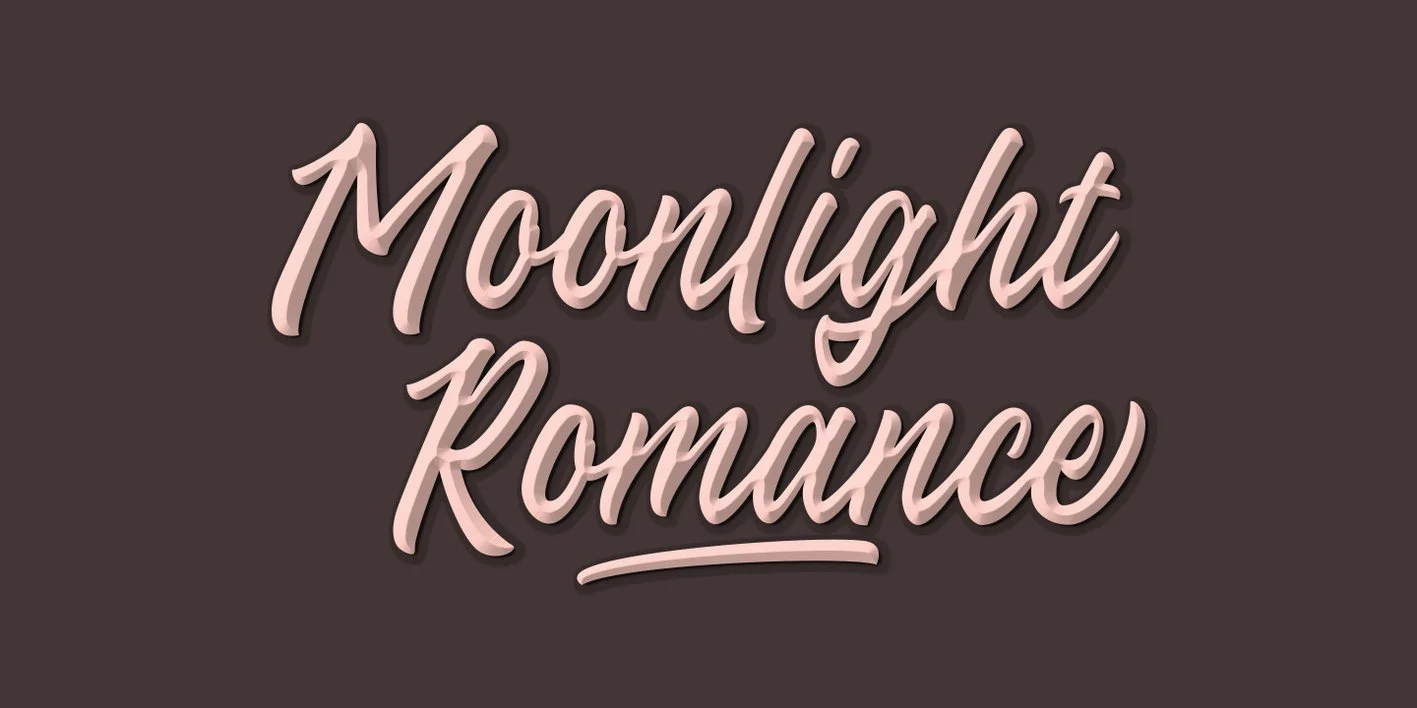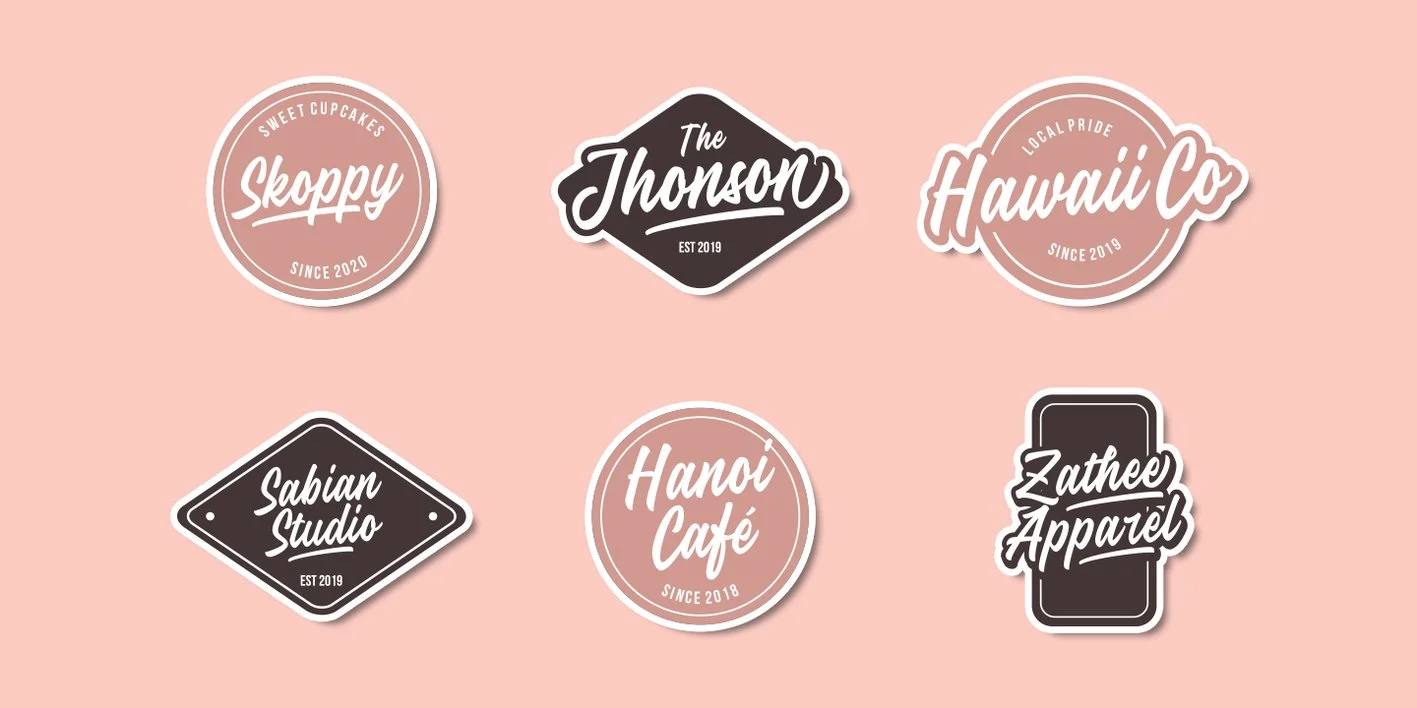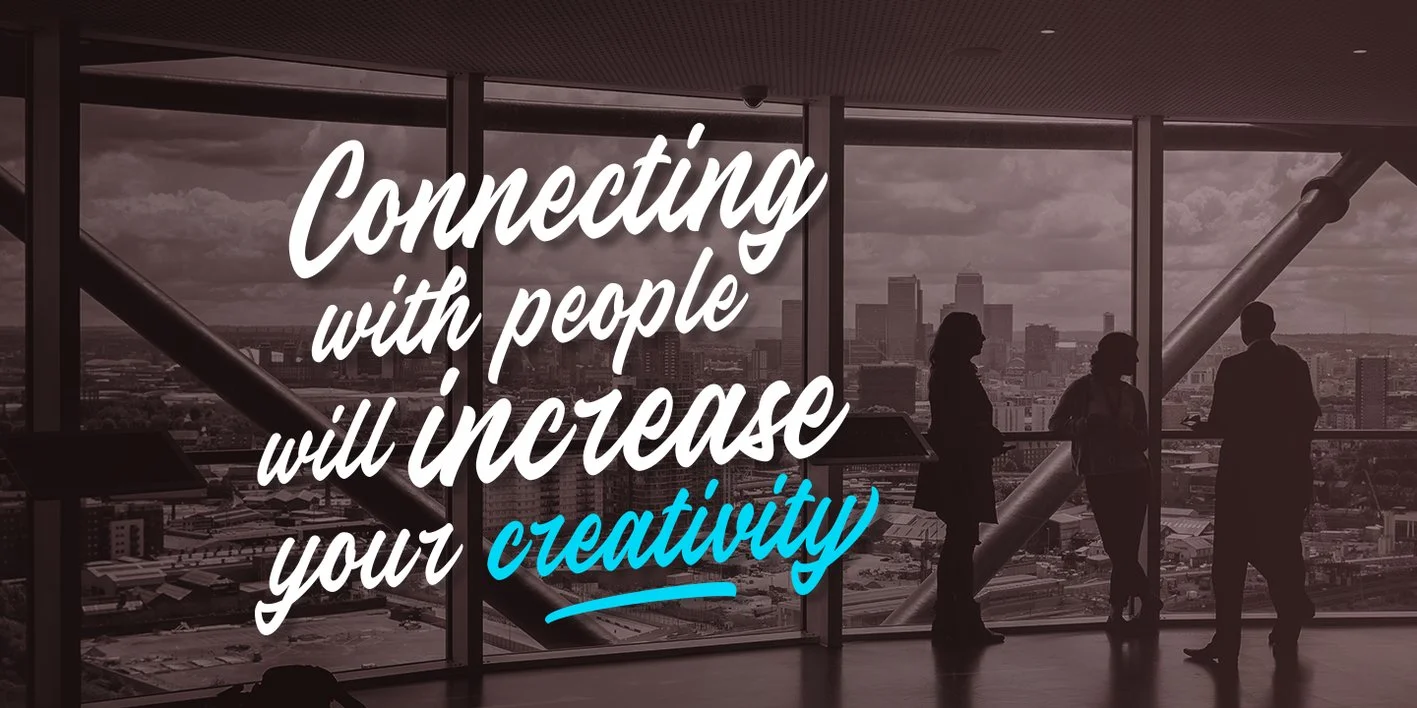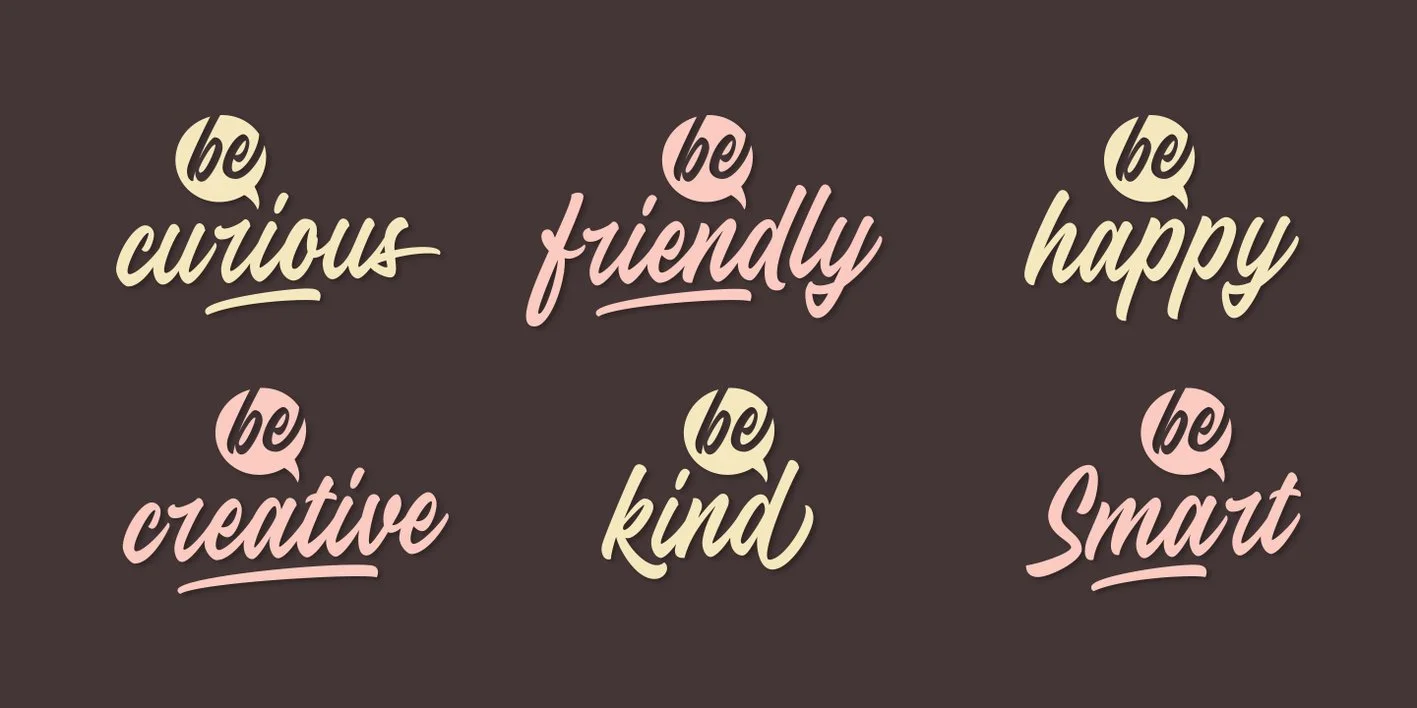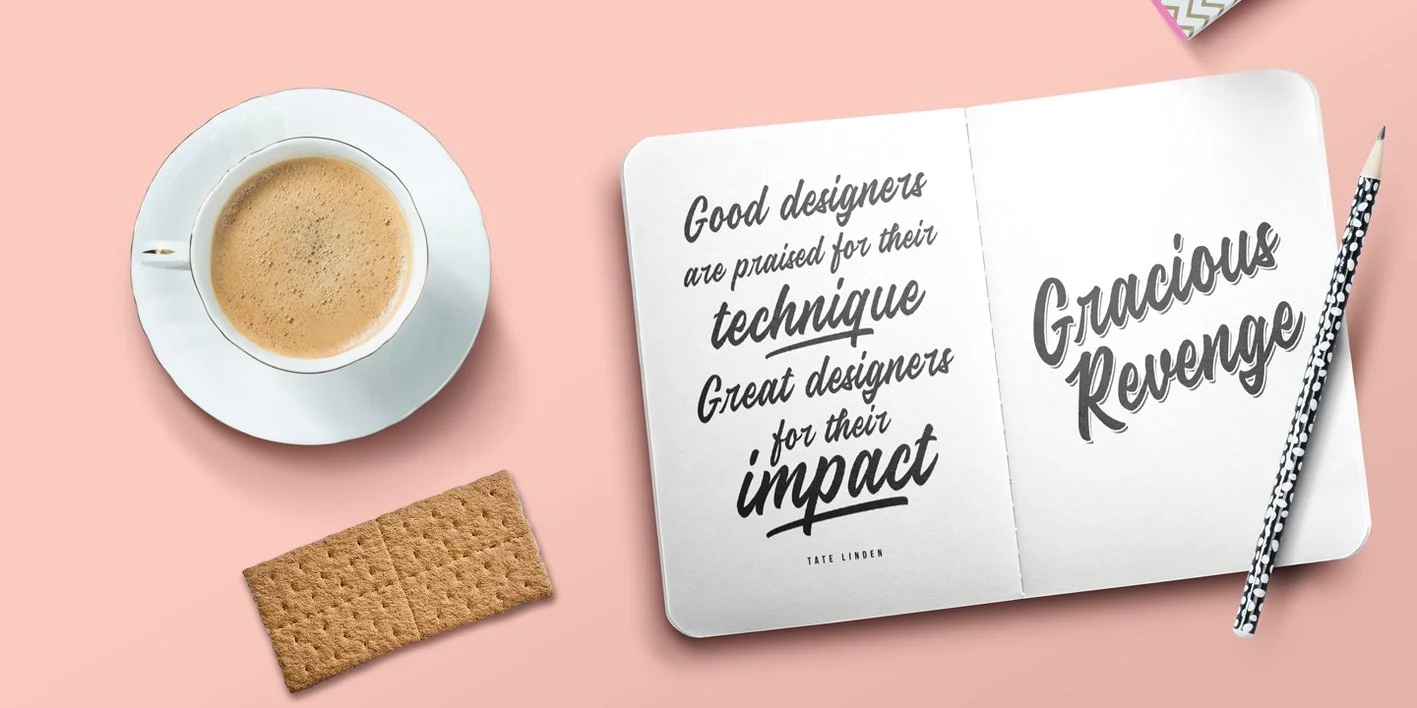
Shelda Font
Shelda is a modern brush script font made with unique style. It has several beautiful alternative characters that you can use as style choices. Also has OpenType features such as ligatures, stylistic alternates and final swashes to enhance your font combinations. Shelda is suitable for those of you who like casual style. You can add swash automatically under the letters by typing underscores twice to five times.